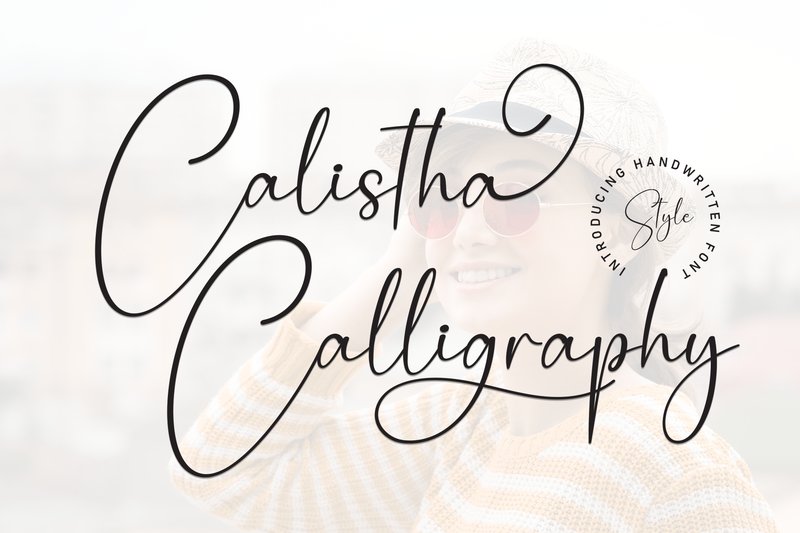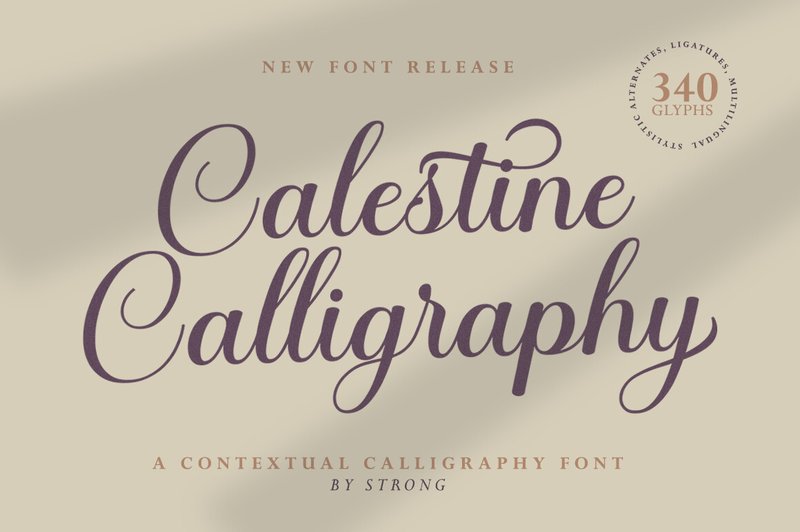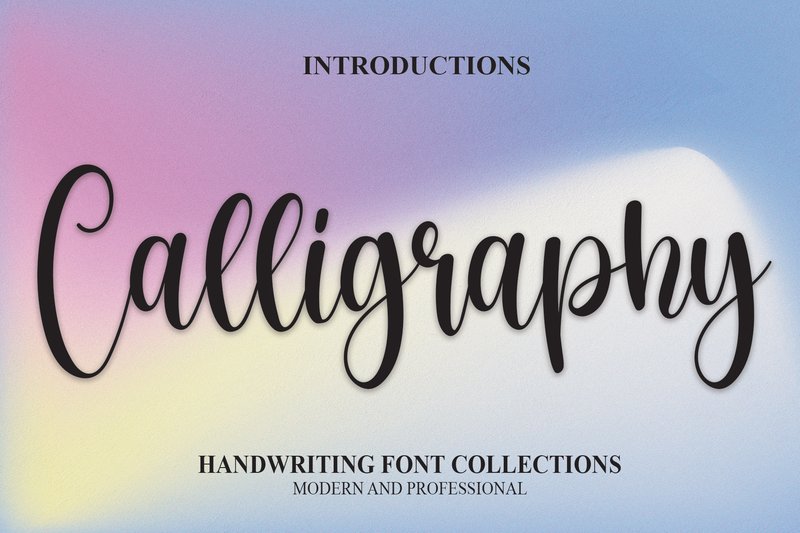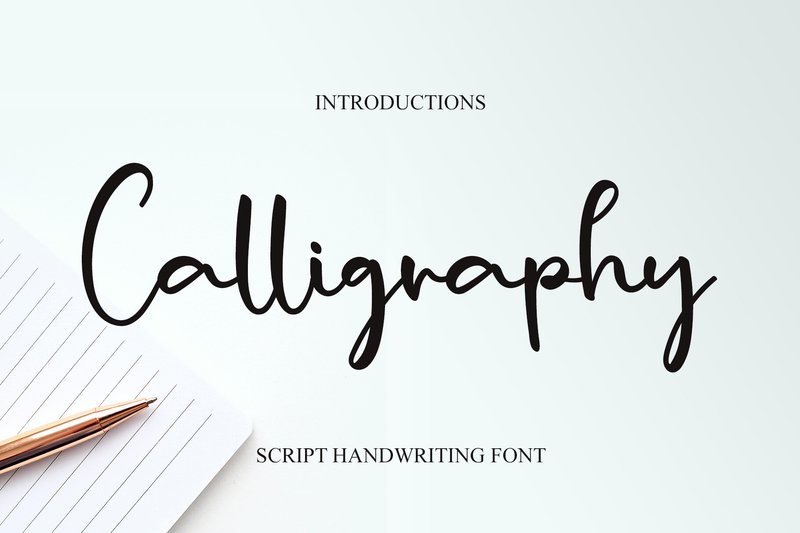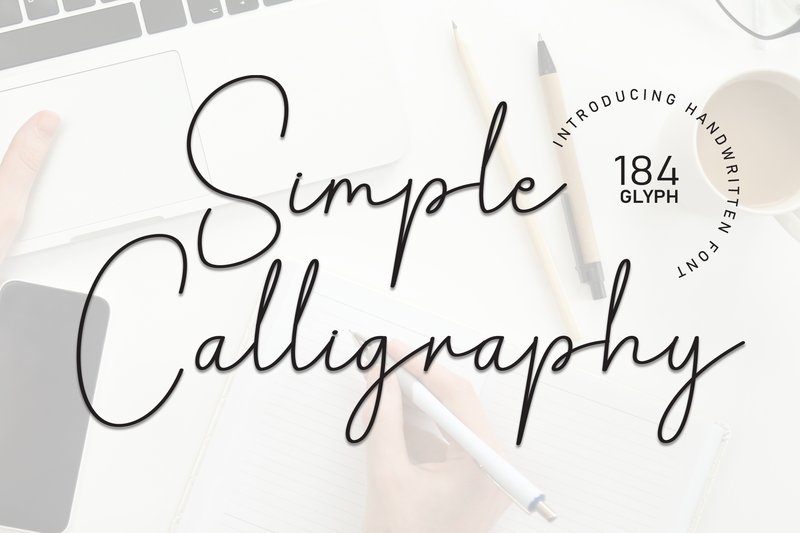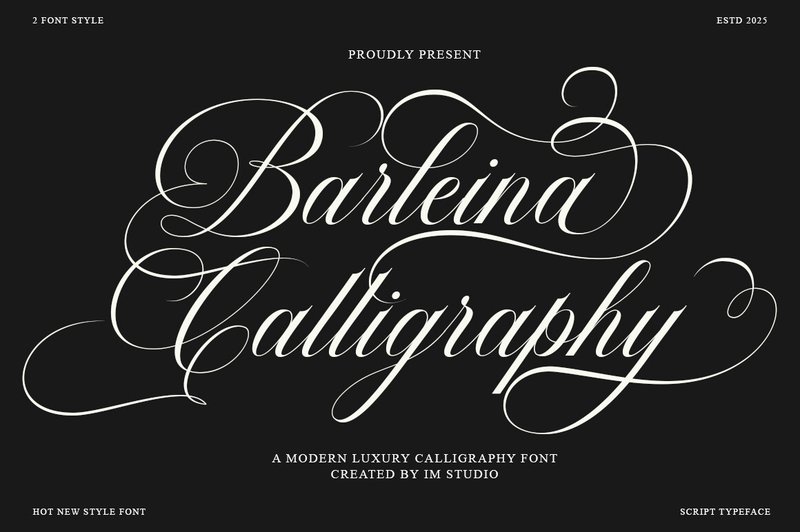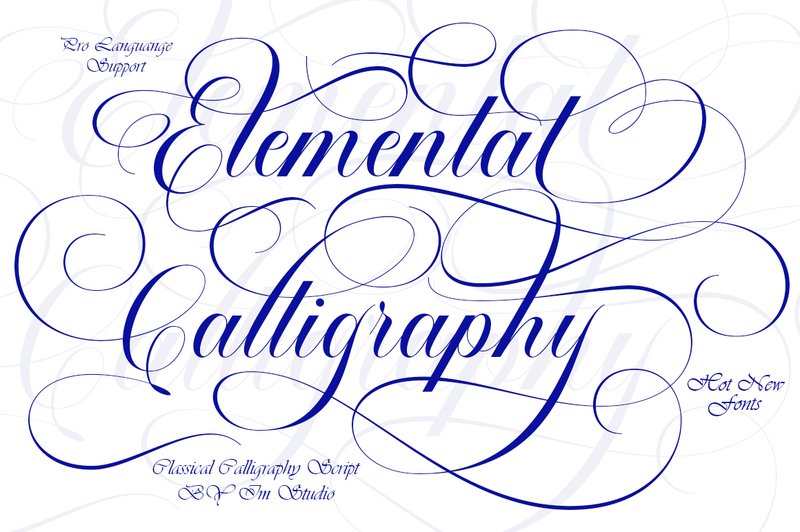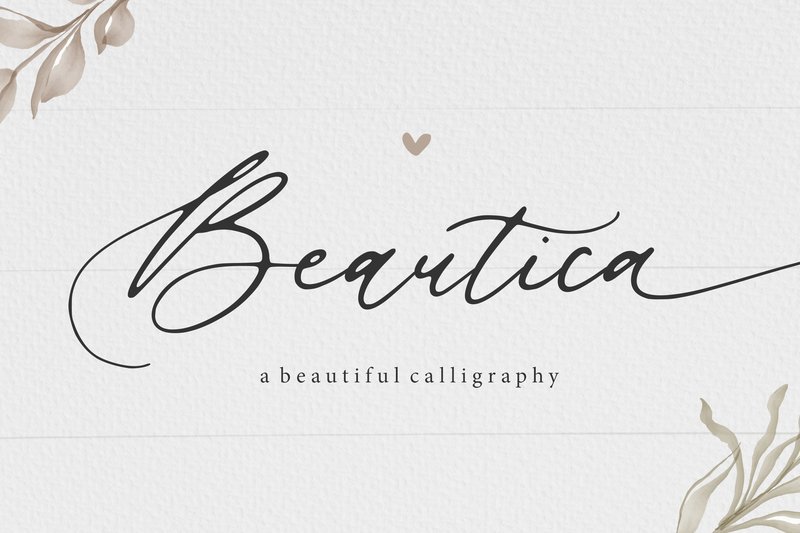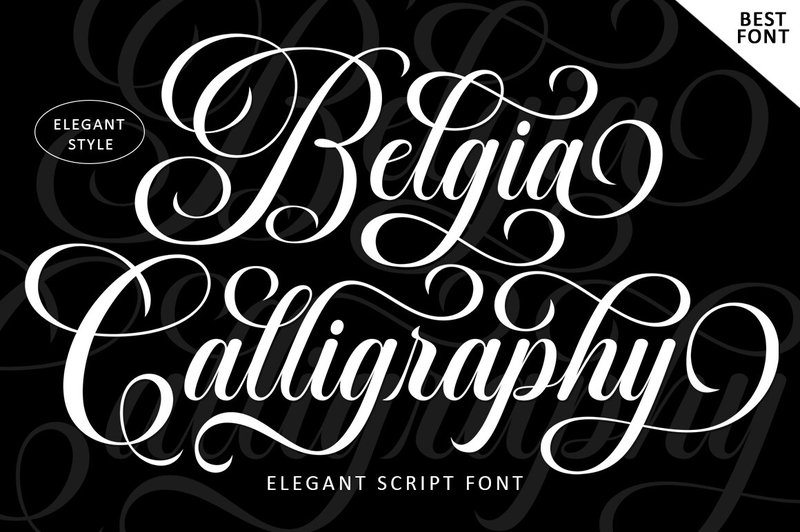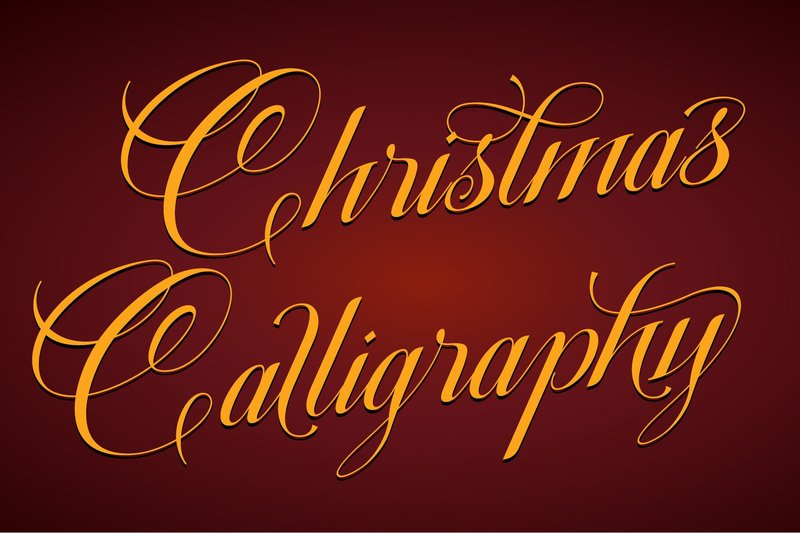
In the fast-paced digital landscape of 2026, the craving for authenticity and a personal, handcrafted touch is stronger than ever. Calligraphy fonts beautifully bridge this gap, offering timeless elegance for modern projects. Perfect for everything from bespoke branding and wedding invitations to unique social media graphics and DIY crafts, a great script font adds instant personality and sophistication. We’ve curated this selection of 27 stunning calligraphy fonts that are currently captivating designers and crafters alike. These popular typefaces are guaranteed to elevate your work and infuse it with a touch of classic, handwritten charm.
1. Calistha Calligraphy (by andikastudio)
Calistha Calligraphy (by andikastudio) feels less like a digital font and more like a piece of authentic, handcrafted lettering. It mirrors the graceful, intentional strokes of a master calligrapher, where every curve and swash flows with a delicate and magical rhythm. Its modern elegance avoids feeling stiff or overly formal, instead offering a warm, personal touch that can elevate any design. This script is a testament to how digital tools can replicate the intimate beauty of pen on paper, turning simple text into an artful statement.
- Elegant, flowing letterforms with a consistent rhythm
- A complete set of uppercase and lowercase characters
- Includes stylistic alternates and ligatures for a natural look
- Smooth, clean lines perfect for both digital and print applications
- Wedding invitations and high-end event stationery
- Sophisticated branding, logos, and taglines
- Engaging social media graphics and quote posts
- Bespoke product packaging and artisanal labels
2. Calestine Calligraphy (by Strong.co)
Calestine Calligraphy (by Strong.co) radiates a quiet, effortless grace that feels both personal and profoundly sophisticated. It’s the typographic equivalent of a silk ribbon untying, with each letter flowing into the next with breathtaking fluidity. Strong.co has crafted a true masterpiece here; the characters are meticulously balanced, ensuring that its delicate nature never compromises legibility. This font doesn’t just write words—it breathes life into them, making it an indispensable tool for designers aiming to create an atmosphere of refined, modern elegance.
- Delicate, flowing strokes with an authentic handwritten feel.
- Perfectly balanced letterforms that maintain clarity and elegance.
- A versatile character set suitable for a wide range of creative projects.
- Smooth, clean lines ideal for both print and digital applications.
- Bespoke wedding invitations, save-the-dates, and event signage.
- Luxury branding for fashion, beauty, and lifestyle companies.
- Elegant social media graphics, quote overlays, and watermarks.
- Signature logos and high-end packaging design.
3. Calligraphy (by andikastudio)
Calligraphy (by andikastudio) If you are looking for a font that masterfully blends delicate elegance with modern versatility, your search ends here. This masterpiece of a handwritten script features exceptionally well-balanced letters that flow together with a natural, sophisticated grace, making it an indispensable tool for creating designs that feel both personal and high-end.
- Delicate and elegant handwritten letterforms
- Distinct, well-balanced characters for superior legibility
- A versatile style that adapts to both classic and contemporary designs
- Smooth, flowing strokes that create a sophisticated aesthetic
- Wedding invitations, save-the-dates, and event stationery
- Luxury branding, boutique packaging, and product labels
- Signature logos and personal watermarks
- Elegant social media quotes and website headers
4. Calligraphy (by YanStudio)
Calligraphy (by YanStudio) is an effortlessly elegant script that channels the warmth of a personal, handwritten note. Its fluid strokes and natural connections evoke a sense of nostalgia and bespoke craftsmanship, giving your work an authentic, human touch. The typeface achieves a perfect harmony between sophisticated flair and approachable legibility, making it an incredibly versatile choice for trending design work. It excels at creating the high-contrast, modern look popular in today’s editorial layouts when paired with a crisp sans-serif font.
- Fluid, flowing strokes for an authentic handwritten feel
- Rhythmic loops and natural connections that enhance readability
- A sophisticated “Bulgaria Signature” style character
- Excellent balance of artistic flair and practical legibility
- Intimate event stationery, such as wedding invitations and thank you cards
- High-end branding for fashion, photography, and lifestyle blogs
- Elegant headings and pull quotes in editorial layouts
- Professional watermarks and personal signatures
5. Simple Calligraphy (by andikastudio)
Simple Calligraphy (by andikastudio) Move over, rigid and uninspired typefaces; this casual handwritten font from andikastudio is the breath of fresh air modern design craves. It masterfully balances a relaxed, approachable vibe with an undercurrent of pure sophistication. The smooth, flowing lines feel both personal and polished, making it an incredibly versatile tool for projects that need a touch of human-centric elegance without feeling stuffy. It’s the typographic equivalent of a perfectly tailored linen shirt—effortlessly stylish and always in vogue.